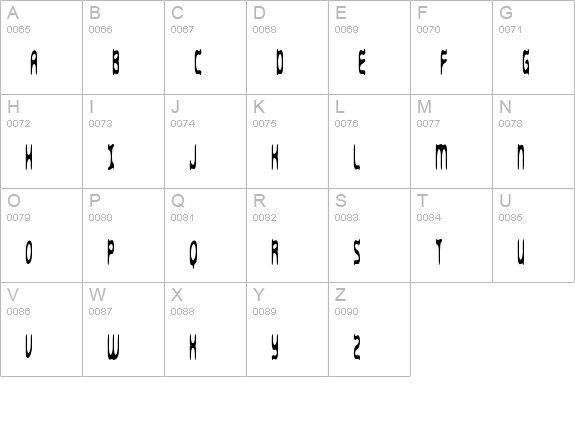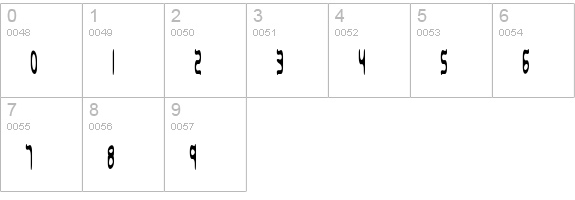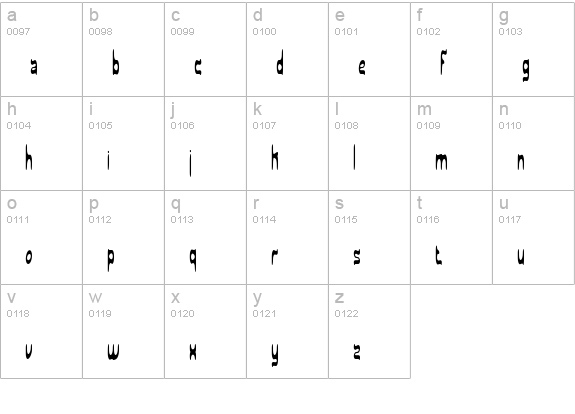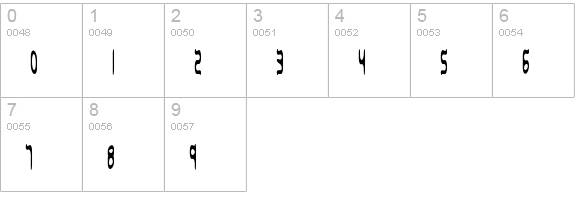
Sarcastic BRK Font Details
Introducing the Sarcastic BRK font - a quirky and playful typeface that adds a touch of humor to your projects. With its bold and exaggerated letterforms, this font is perfect for making a statement or adding a sarcastic twist to your designs. Whether you're creating posters, social media graphics, or greeting cards, Sarcastic BRK is sure to grab attention and inject some fun into your work. Best of all, Sarcastic BRK is available for free download at FontsMarket.com. So go ahead and unleash your creativity with this unique and eye-catching font today!